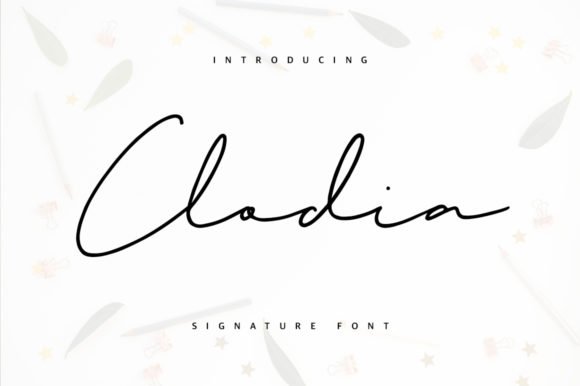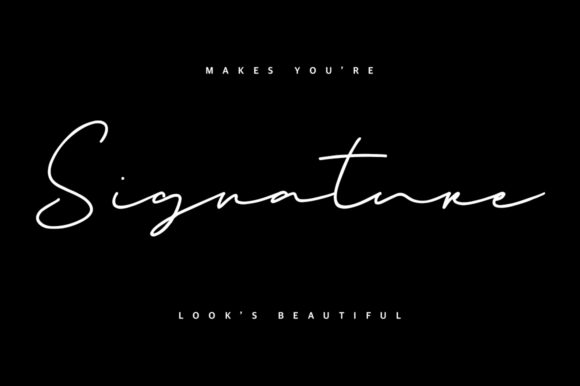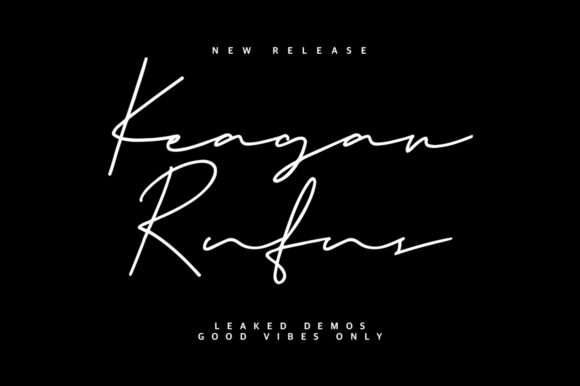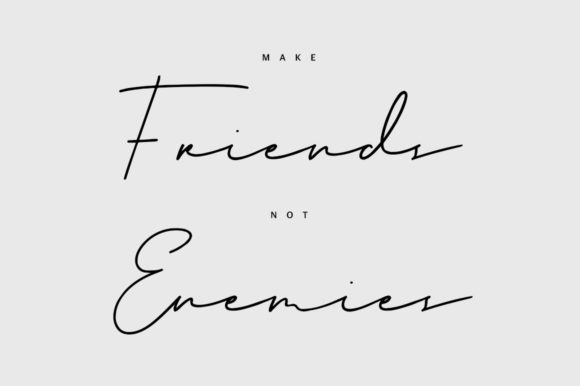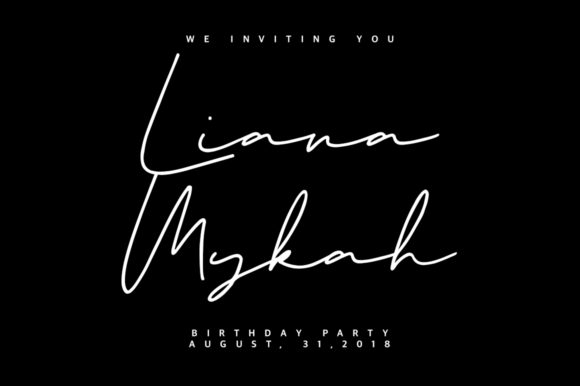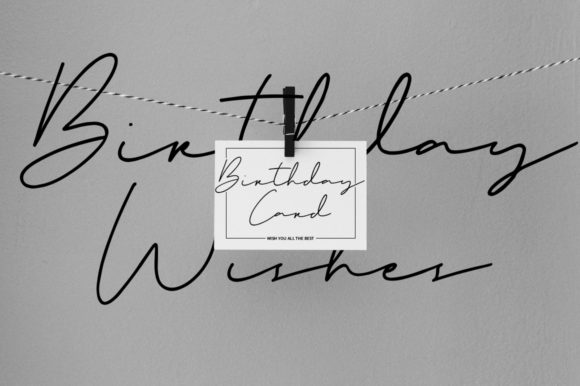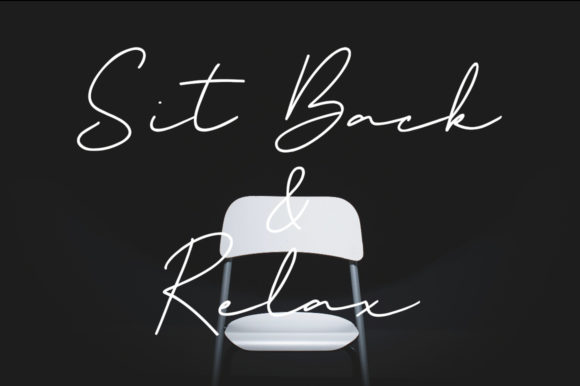
Discover the Delicate Charm of Clodia Font
You know that moment when you’re brainstorming ideas for a new project and everything just clicks? You feel a rush of excitement, and your creativity starts flowing. For designers, finding the perfect font can be just that moment. It’s the spark that ignites your imagination and brings your vision to life.
Enter Clodia Font, a relaxed and sweet handwritten font that’s sure to captivate your heart. With its distinct and delicate letters, Clodia Font is a masterpiece that’s waiting to be explored. Whether you’re designing a wedding invitation, a blog post, or a social media graphic, this font is the perfect companion to help you create spectacular designs.
What makes Clodia Font truly valuable for designers is its incredible versatility. From elegant and sophisticated to playful and whimsical, this font can adapt to any style or tone, making it a must-have in every designer’s toolkit.
- Unique Characteristics: Elegant script with a touch of sophistication, suitable for formal and business applications
Designer Review: Clodia Font
Clodia Font is a lovely, elegant script typeface that shines in formal settings. ✨ I particularly appreciate its nuanced curves and refined details, making it perfect for invitations, certificates, or other occasions where you want to convey sophistication.
The font family includes several weights, from Light to Bold, which allows for flexibility in your design projects. ✨ Additionally, the OpenType features and Latin Extended-A character set make it a great choice for multi-language publications.
- Beautiful, elegant script style
- Nuanced curves and refined details
- OpenType features and Latin Extended-A character set
However, there are some limitations to consider. ⚠️ The font may be too ornate for some designs, and its high x-height might make it difficult to read in smaller sizes. Additionally, the font lacks a condensed version, which might limit its use in narrow columns or tight spaces.
Overall, Clodia Font is a great choice for designers looking to add a touch of elegance to their projects. While it may not be suitable for every design scenario, its unique style and features make it a valuable addition to any font library.
Clodia Font is a versatile font that can be used for a variety of purposes, including:
- Creating elegant headings and titles.
- Designing custom graphics and typography.
- Adding a touch of sophistication to your branding and marketing materials.
Alternatives to Clodia Font
Playfair Display is a luxurious, high-end serif font perfect for creating elegant and sophisticated designs. It’s ideal for use in titles, headings, and other prominent text elements where you want to make a statement.
Compared to Clodia Font, Playfair Display has a more formal and traditional feel, while Clodia Font has a more modern and sleek aesthetic. Playfair Display is a better choice when you need to convey a sense of luxury and sophistication, whereas Clodia Font is more suitable for modern and minimalist designs.
Crimson Text is a classic serif font with a warm and elegant feel. It’s perfect for use in body text, as well as in titles and headings where you want to add a touch of sophistication.
Crimson Text has a more subtle and understated feel compared to Clodia Font, which is bolder and more eye-catching. Crimson Text is a better choice when you need to create a sense of balance and harmony in your design, whereas Clodia Font is more suitable for designs that need a bold statement.
Lato is a modern sans-serif font with a clean and elegant feel. It’s perfect for use in body text, as well as in titles and headings where you want to add a touch of sophistication without being too bold.